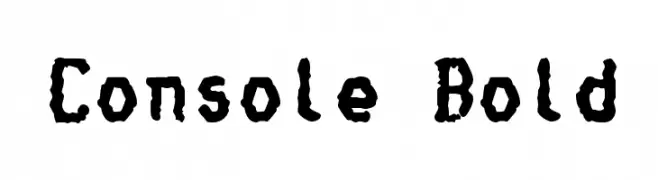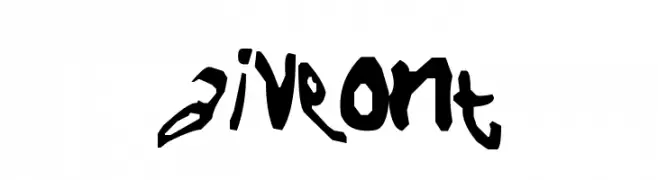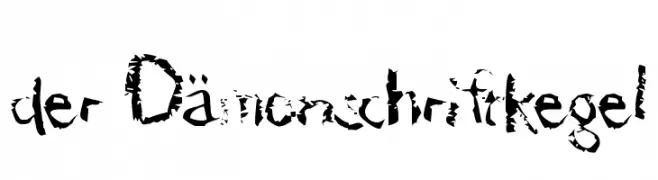
( Fonts by dartcanada.tripod.com - Darren Rigby )
A bold, distressed font with a rugged, weathered appearance.
( Fonts by Mr Fisk - Mike Larsson - fontorama.net )
A whimsical and irregular hand-drawn font with a playful and artistic style.
( Fonts by Utopiafonts )
A distressed, grungy font with jagged edges and an artistic, chaotic style.